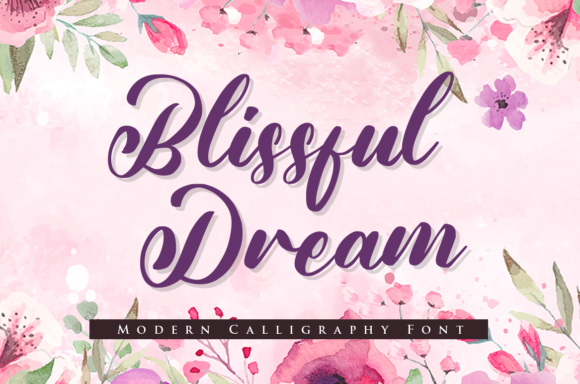
The Blissful Dream Font: A Designer’s Dream Come True
Have you ever been in the middle of a design project, and suddenly, you’re stuck on finding the perfect font? I recall a particularly frustrating experience when a client asked for a “cute and beautiful” font for their branding project. After hours of searching, I stumbled upon the Blissful Dream font, and it was love at first sight! 💕
Blissful Dream is a gorgeous handwritten font that exudes an incredibly gentle feel. Its beautiful swashes and ligatures make it incredibly versatile, perfect for turning any creative idea into a true piece of art! In this article, I’ll share my experience with this lovely font, its features, and how to make the most of it in various design platforms.
An Honest Review of Blissful Dream
- ✨ The font’s gentle and elegant feel makes it perfect for designs that require a touch of sophistication.
- ✅ The gorgeous swashes and ligatures add a creative flair to any design.
- 💫 It’s incredibly versatile and can be used for a wide range of design projects, from branding to invitations.
- 🎨 The font’s unique character makes it stand out from more traditional fonts.
While Blissful Dream is an amazing font, there are a few things to keep in mind:
- ⚠️ Some of the swashes and ligatures might not work well in smaller font sizes.
- 🤔 The font might not be the best choice for body text due to its decorative nature.
The Backstory of Blissful Dream
Blissful Dream was designed by a talented type designer who wanted to create a font that captures the essence of a peaceful dream. The designer’s inspiration came from traditional handwriting and calligraphy, with a modern twist. The result is a beautiful and elegant font that’s perfect for designs that require a touch of sophistication.
Q: What is the best use for Blissful Dream font?
A: Blissful Dream is perfect for designs that require a touch of elegance and sophistication, such as branding, invitations, and greeting cards.